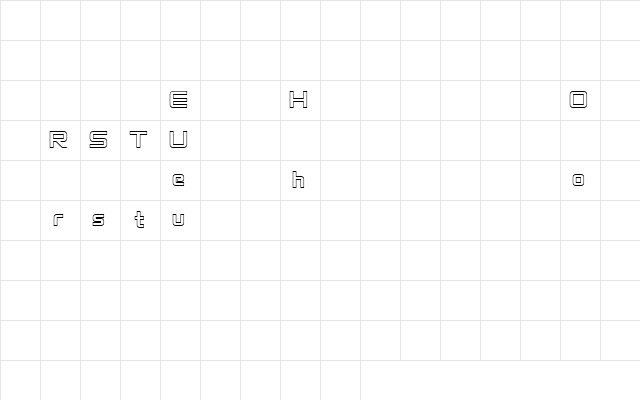
VentureDemoOutline Regular
Design Context for VentureDemoOutline Typeface
VentureDemoOutline is built around its visual character rather than neutral utility — its distinctive forms are designed to make an impression at display sizes.
Font Pairing: Pair with a clean neutral sans-serif for body copy to let VentureDemoOutline's character lead without overwhelming the composition.
Pro Tip: Treat VentureDemoOutline as the centrepiece of your typographic hierarchy. One strong heading set in a decorative face can carry an entire layout.